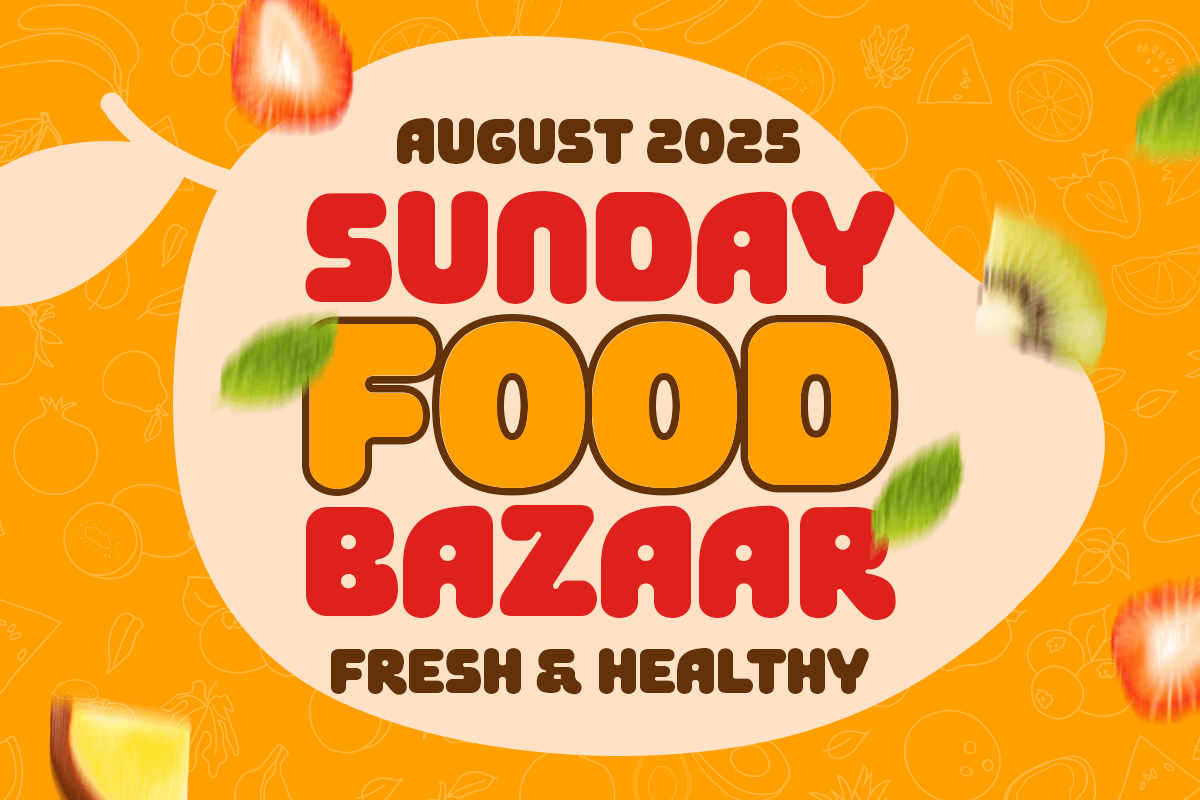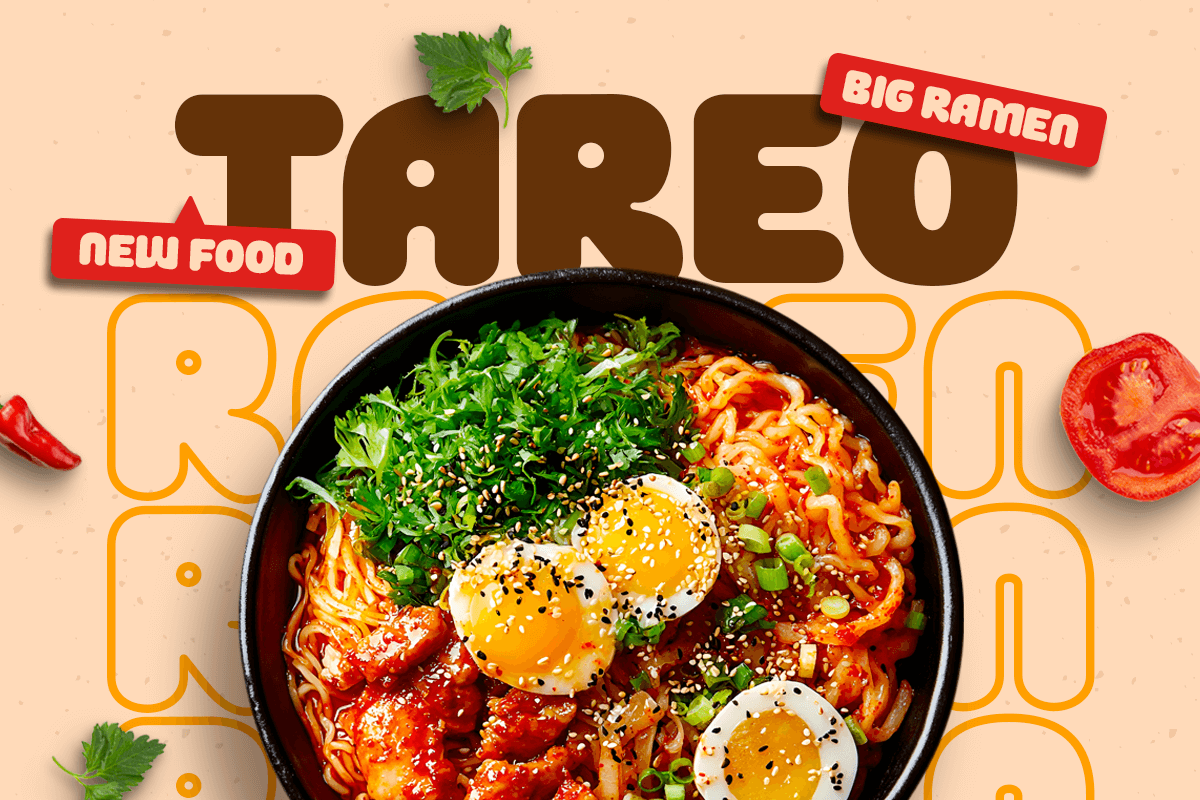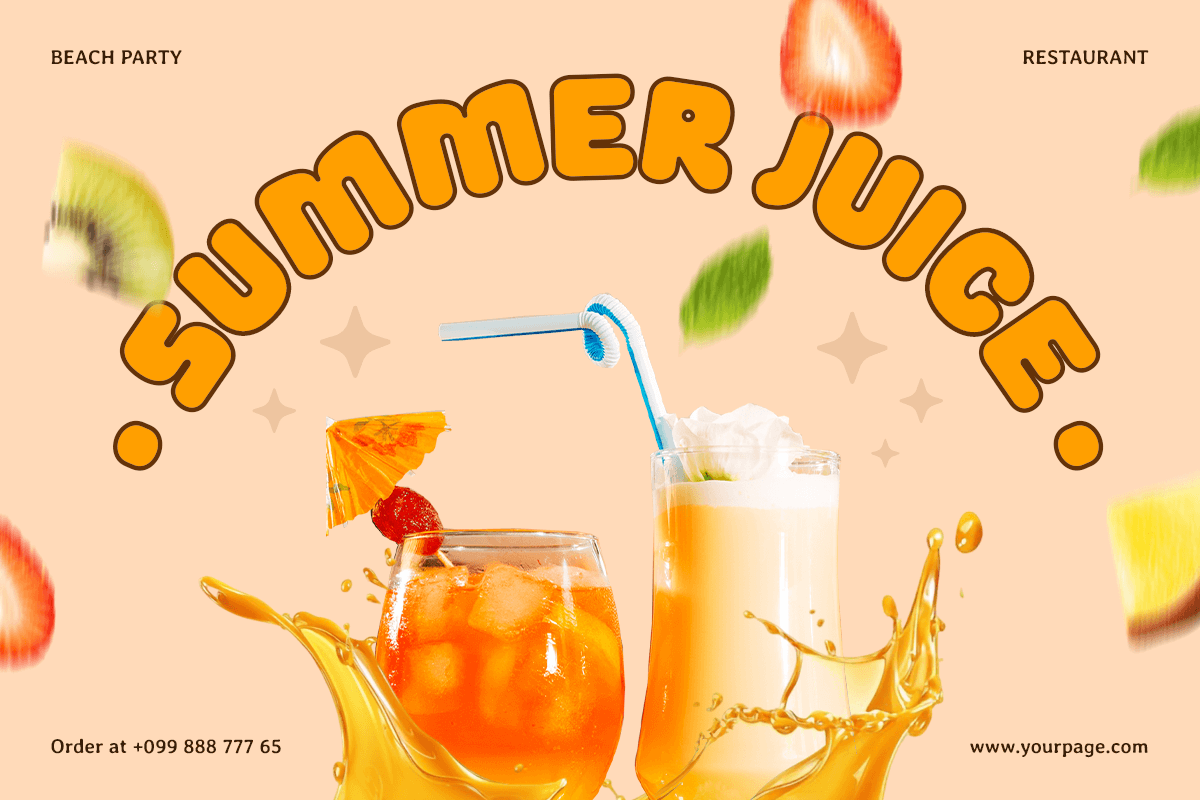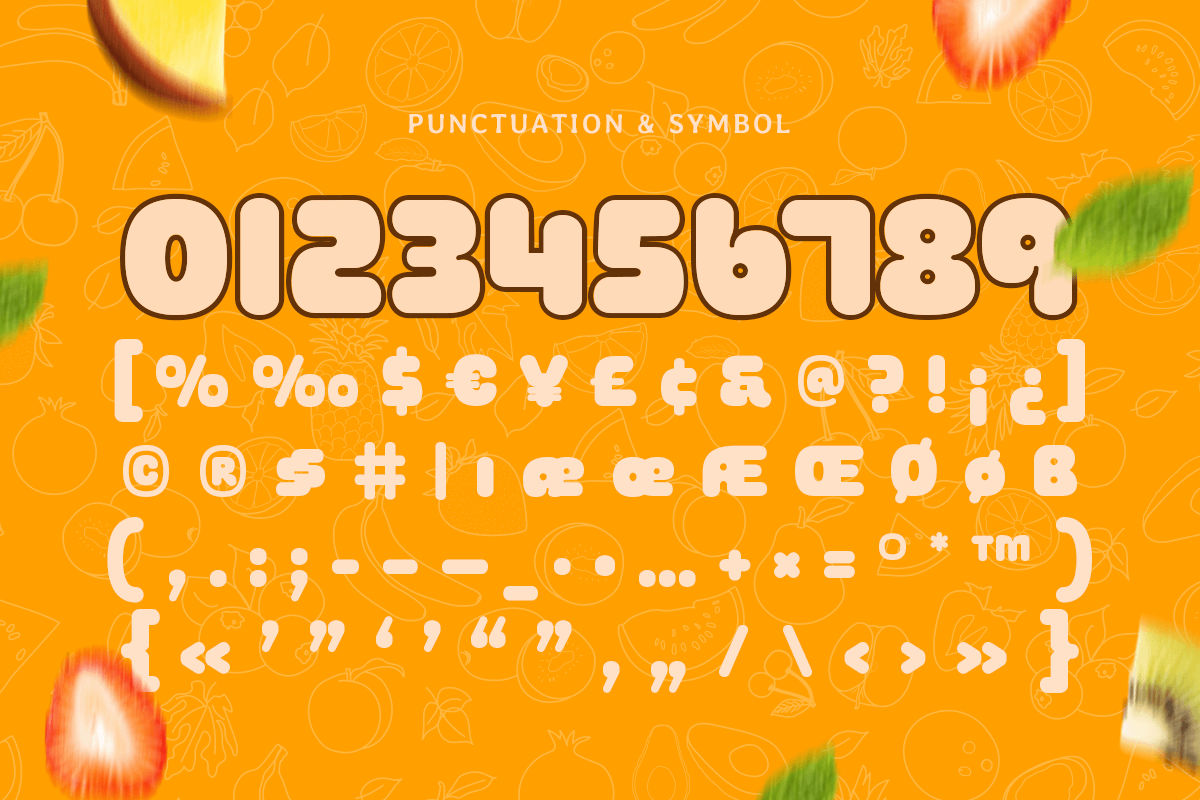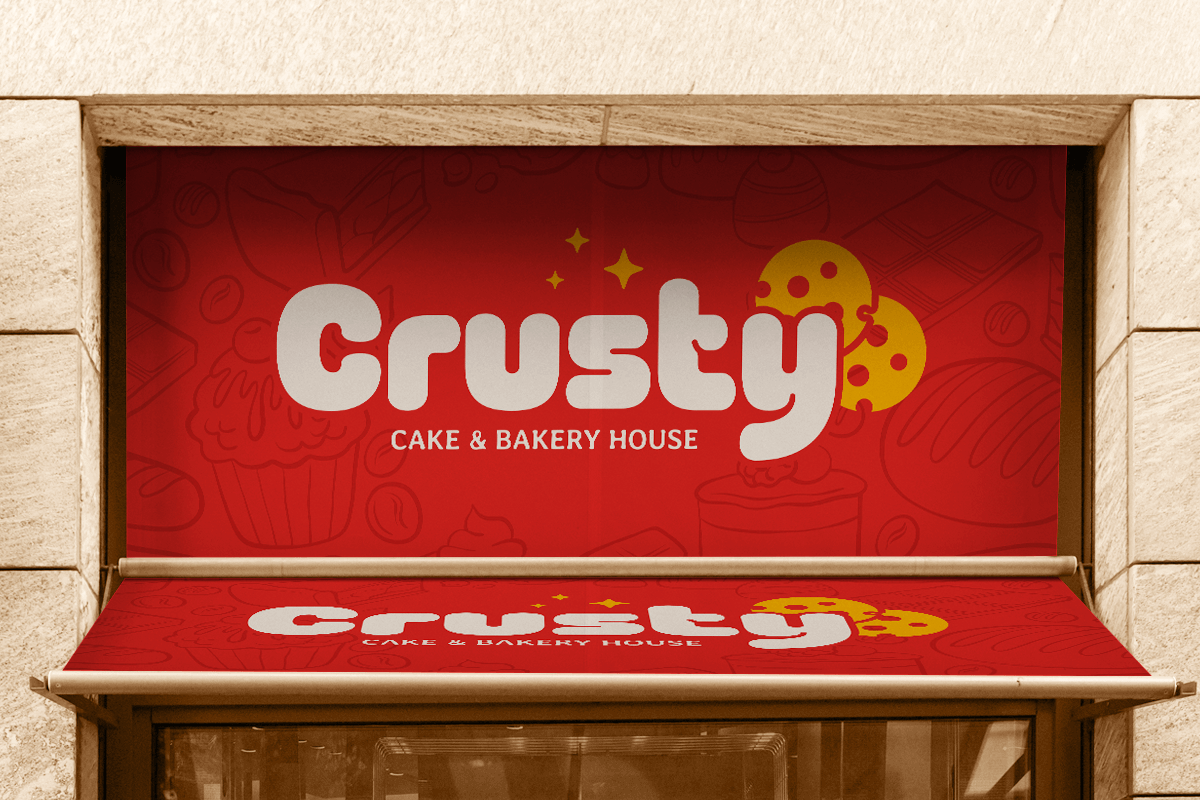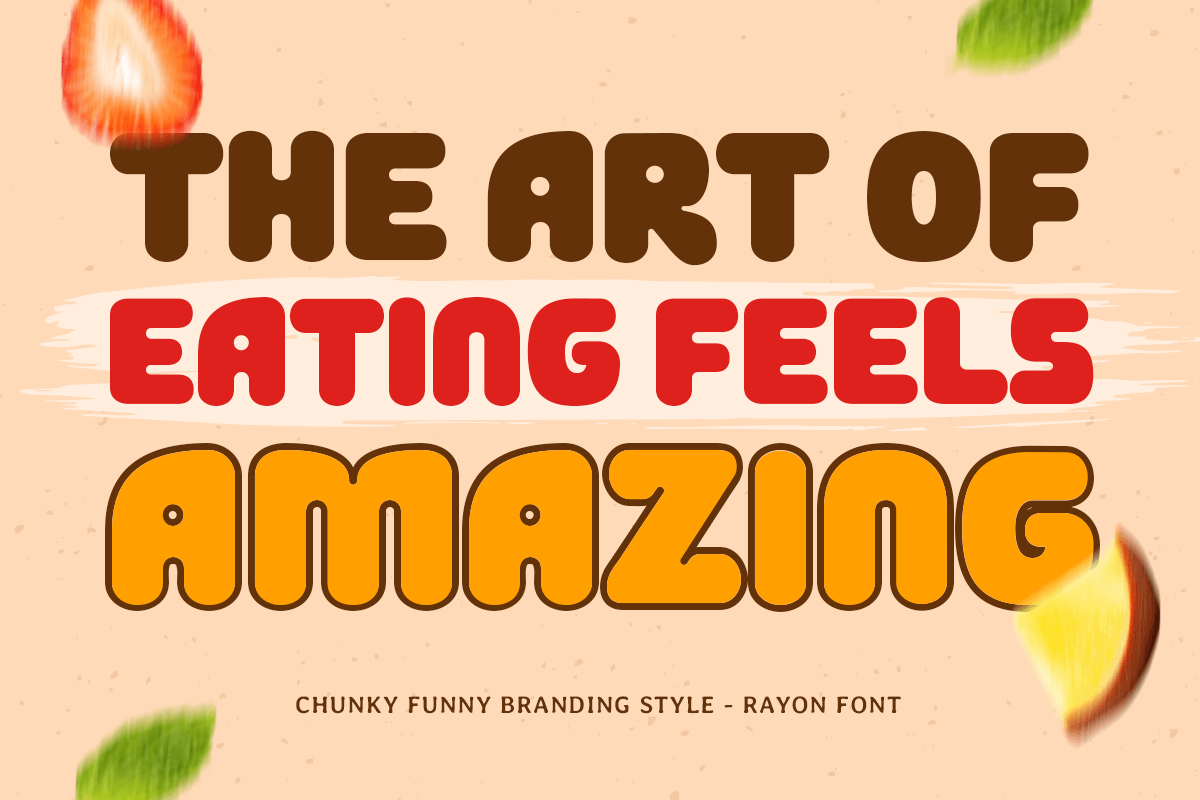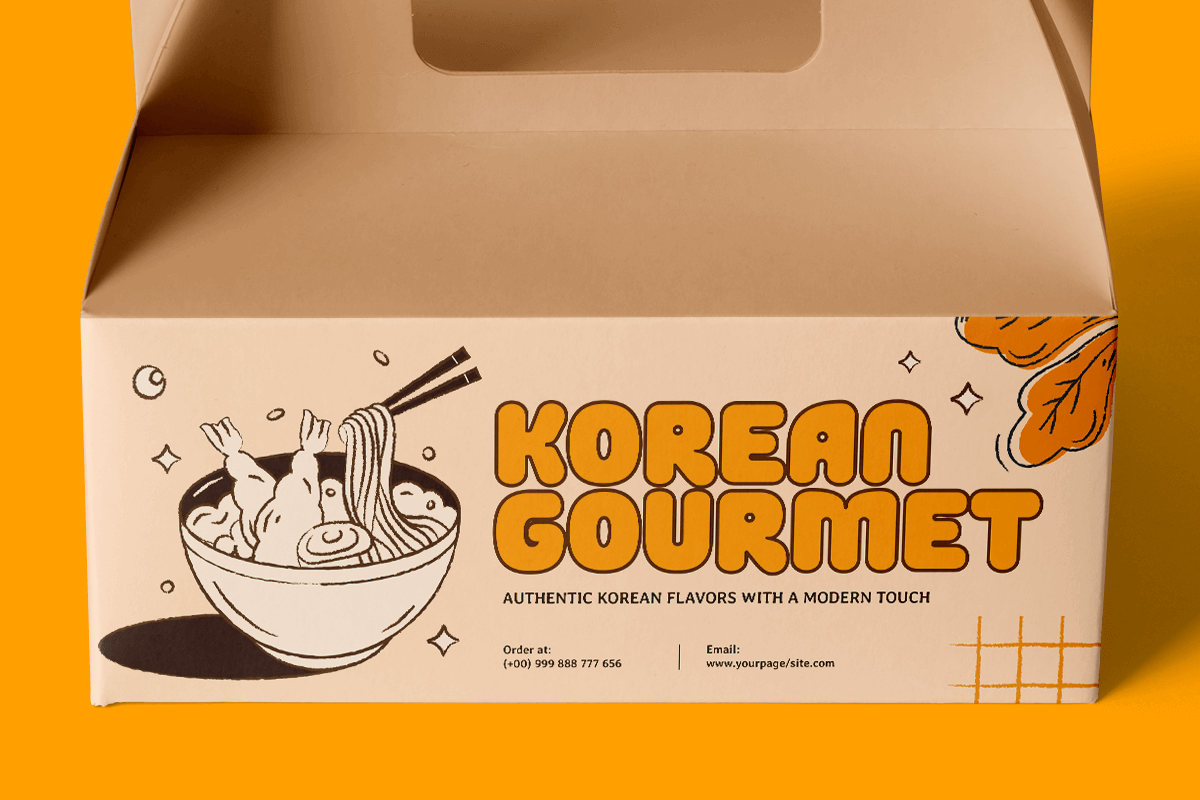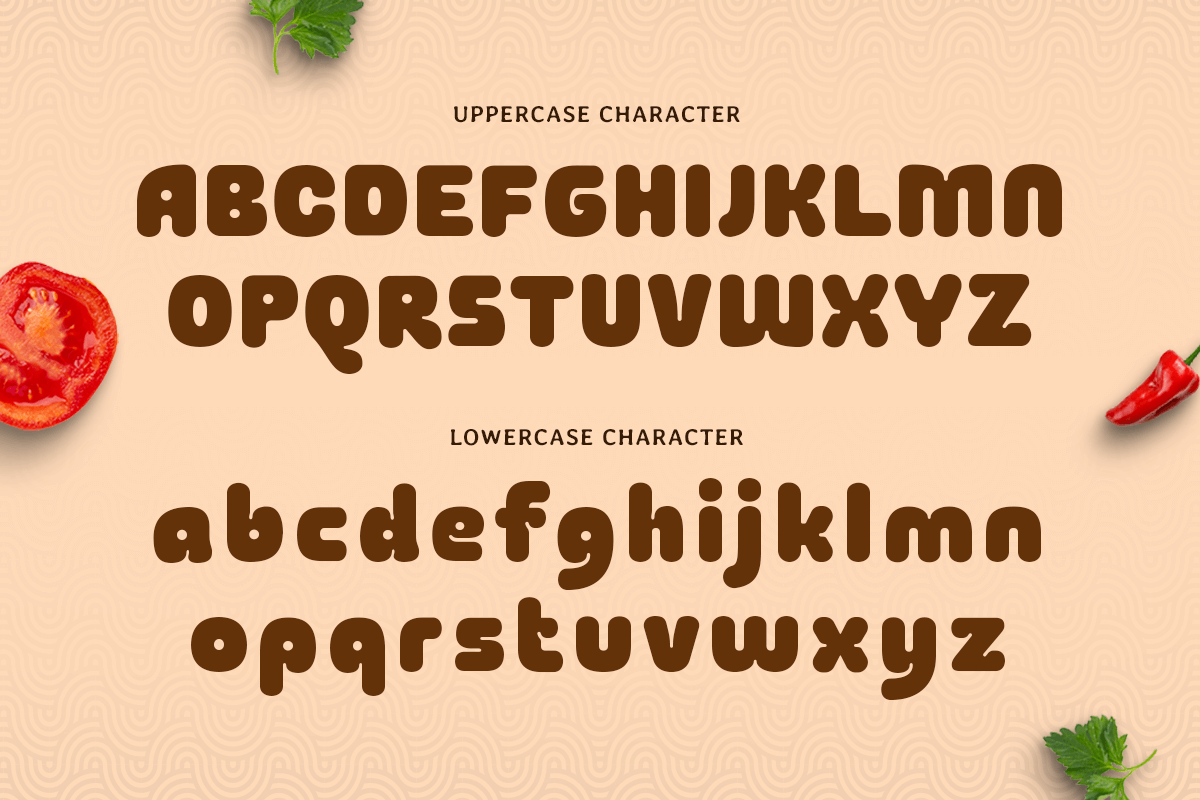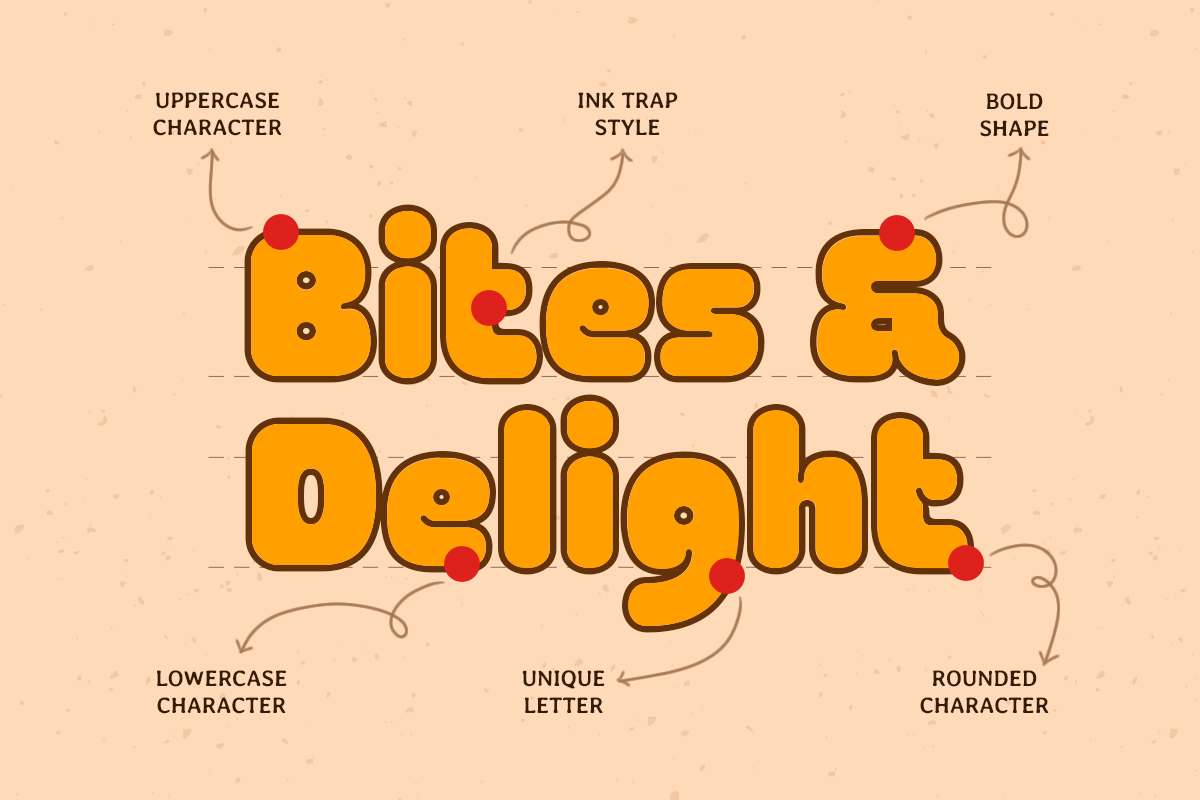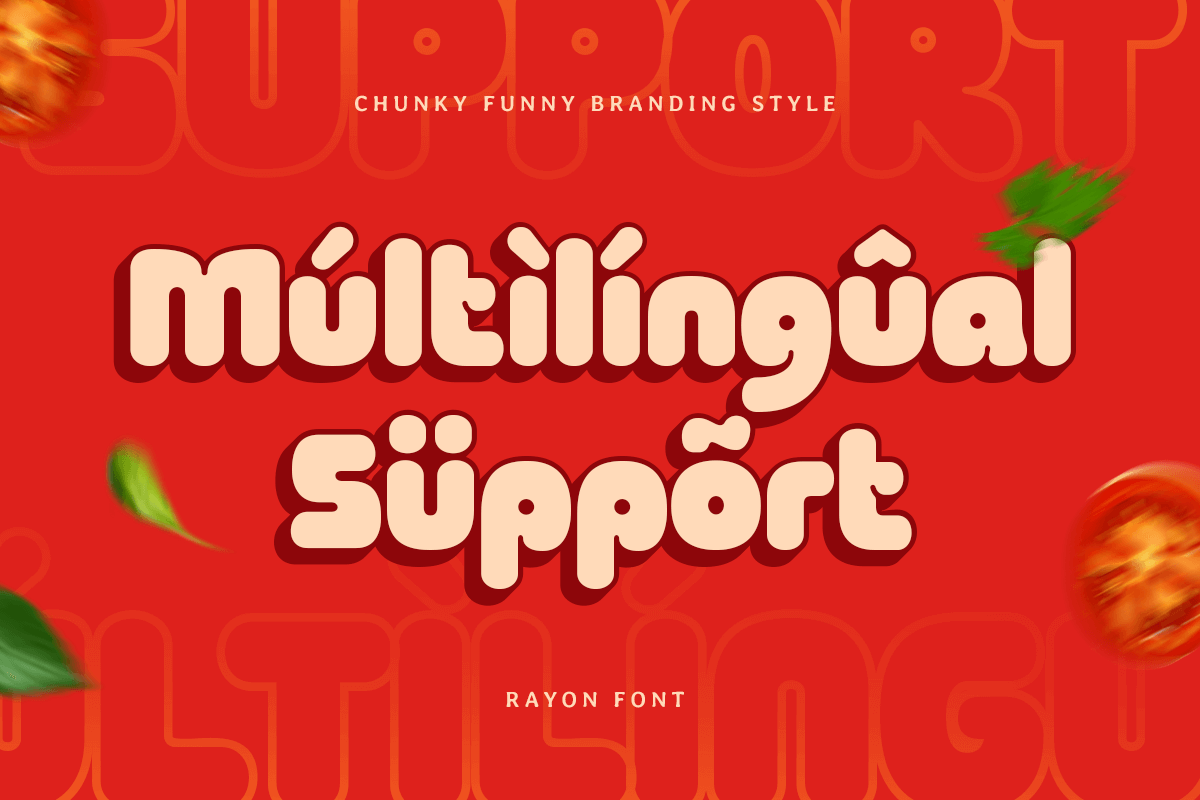
Rayon – Chunky Funny Food Branding Font
Rayon is a bold and bubbly display font designed for brands that want to be playful, loud, and full of flavor. With thick strokes, rounded corners, and a fun-loving personality, it’s perfect for snack packaging, food trucks, candy brands, restaurant menus, and any project that calls for extra delight and appetite appeal.
Its friendly and expressive letterforms make Rayon especially effective for children’s brands, food campaigns, and bold logo design. Whether printed on wrappers or splashed across a billboard, Rayon serves up big smiles and bold attention. Rayon adds a bite of boldness to your designs—fun, chunky, and crafted to be remembered.
Rayon Chunky Funny Food Branding Font Features:
- Bold and Playful Display Style
- Ready with 3 Styles: Regular, Outline, Extrude
- Great for Food Brands, Kids Products, Menus & Packaging
- Punctuation, Numbers, and Symbols
Multilingual Characters available for:
Afrikaans, Albanian, Asu, Basque, Bemba, Bena, Breton, Chiga, Cornish, Dutch, English, Estonian, Filipino, Finnish, Friulian, Galician, German, Gusii, Indonesian, Irish, Italian, Kabuverdianu, Kalenjin, Kinyarwanda, Luo, Luxembourgish, Luyia, Machame, Makhuwa-Meetto, Makonde, Malagasy, Manx, Morisyen, North Ndebele, Nyankole, Oromo, Portuguese, Quechua, Romansh, Rombo, Rundi, Rwa, Samburu, Sango, Sangu, Scottish Gaelic, Sena, Shambala, Shona, Soga, Somali, Spanish, Swahili, Swedish, Swiss.